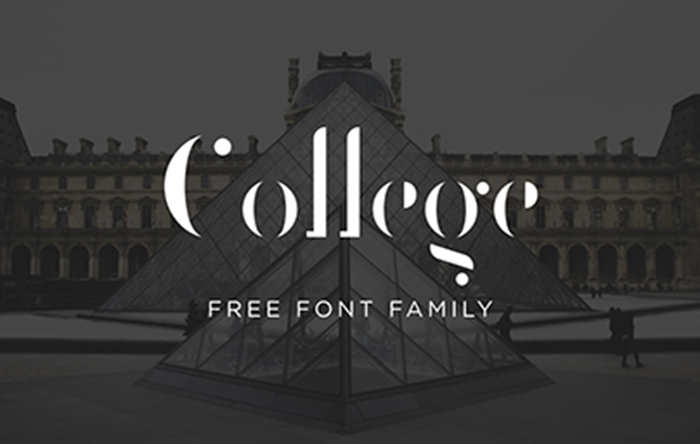
College Stencil Font
Introducing Naratif Condensed! It is designed and shared by Corentin Riviere. Typography is based on the architecture of the College de France. it is inspired by arches and collones building. to form the shapes of the letters of his typography. College Stencil is a elegant and classic line-style slab serif font in OTF format. It looks stunning in just about every context. Use it for logos, headings, body text and more.